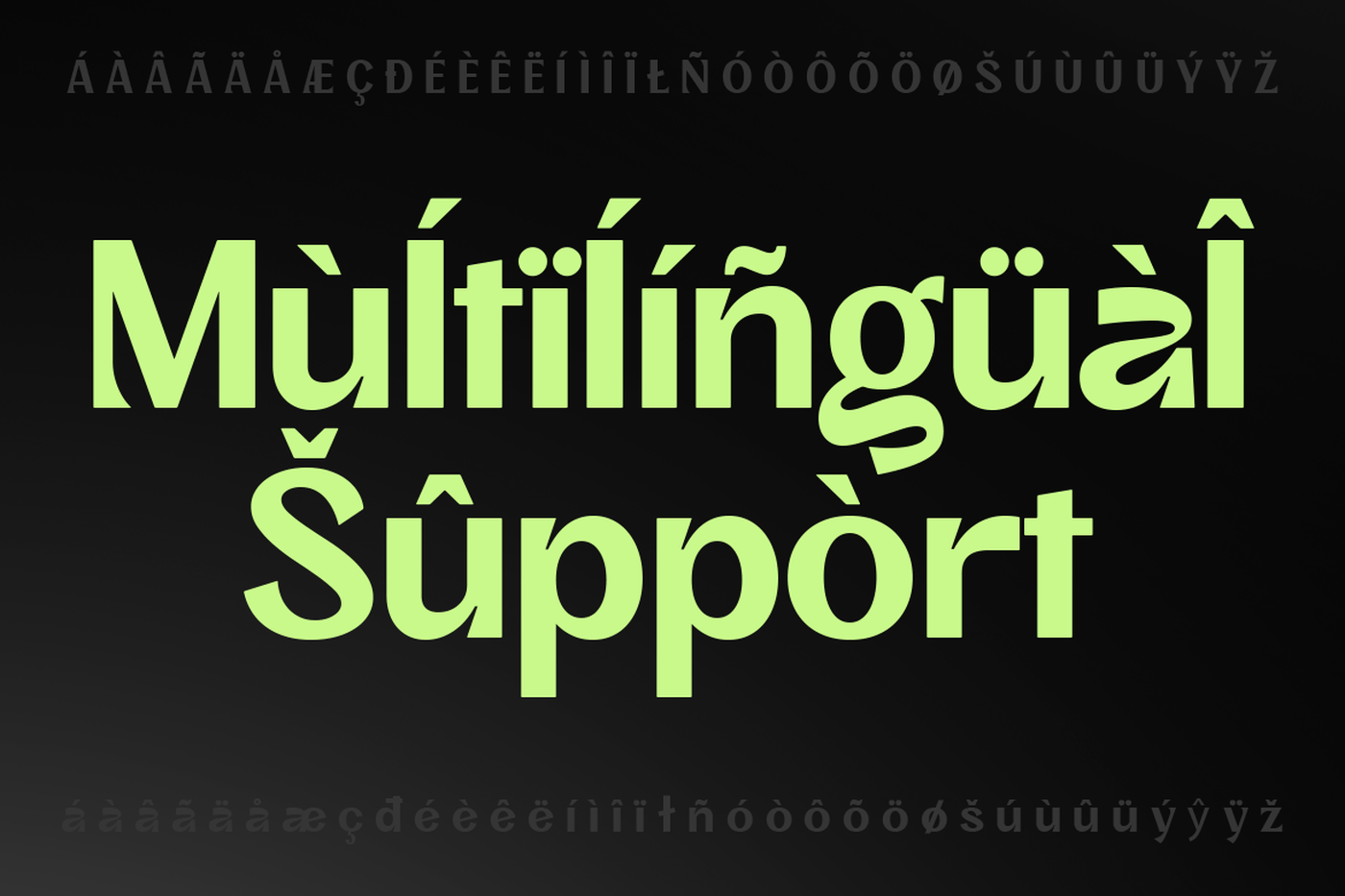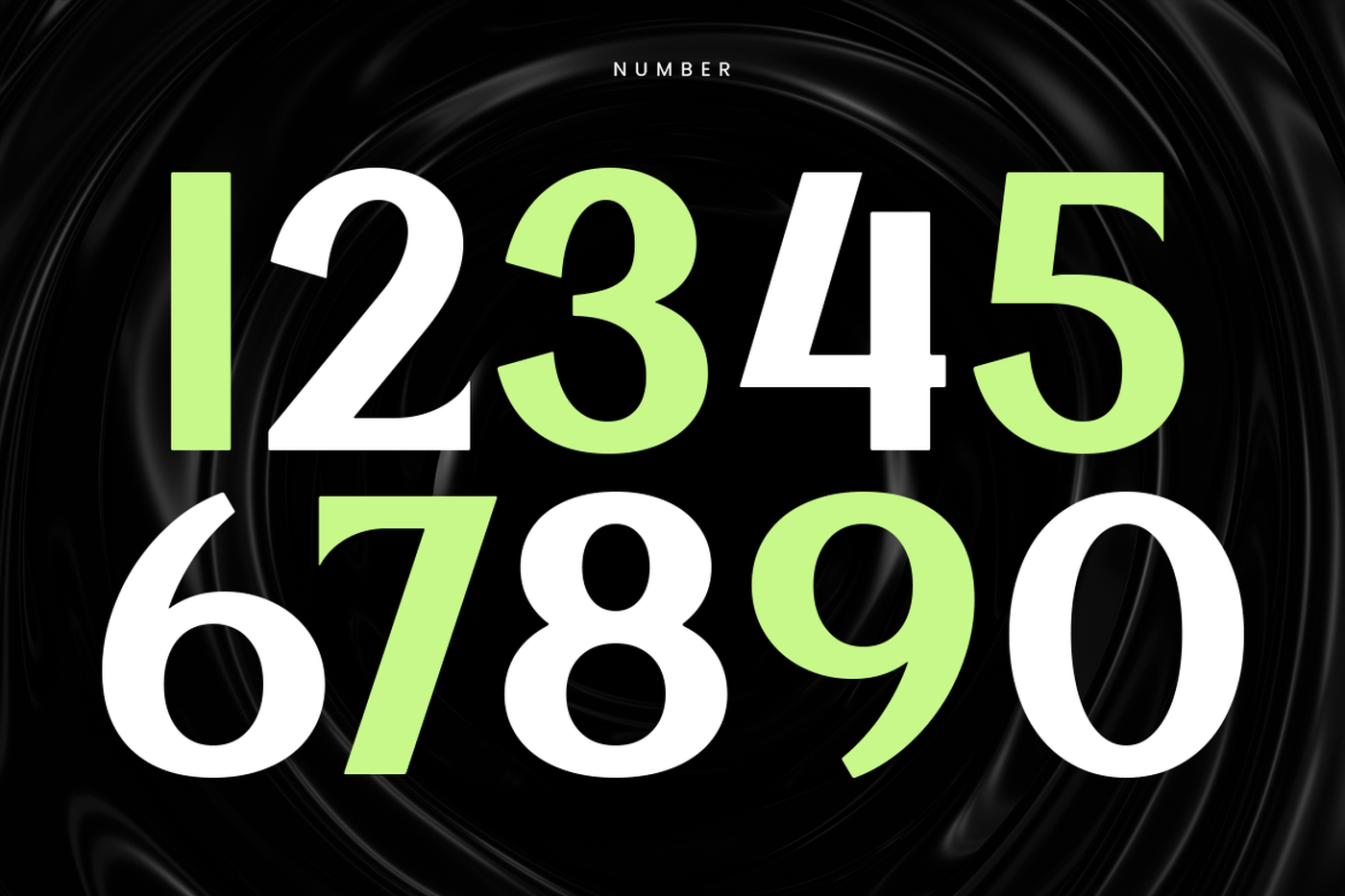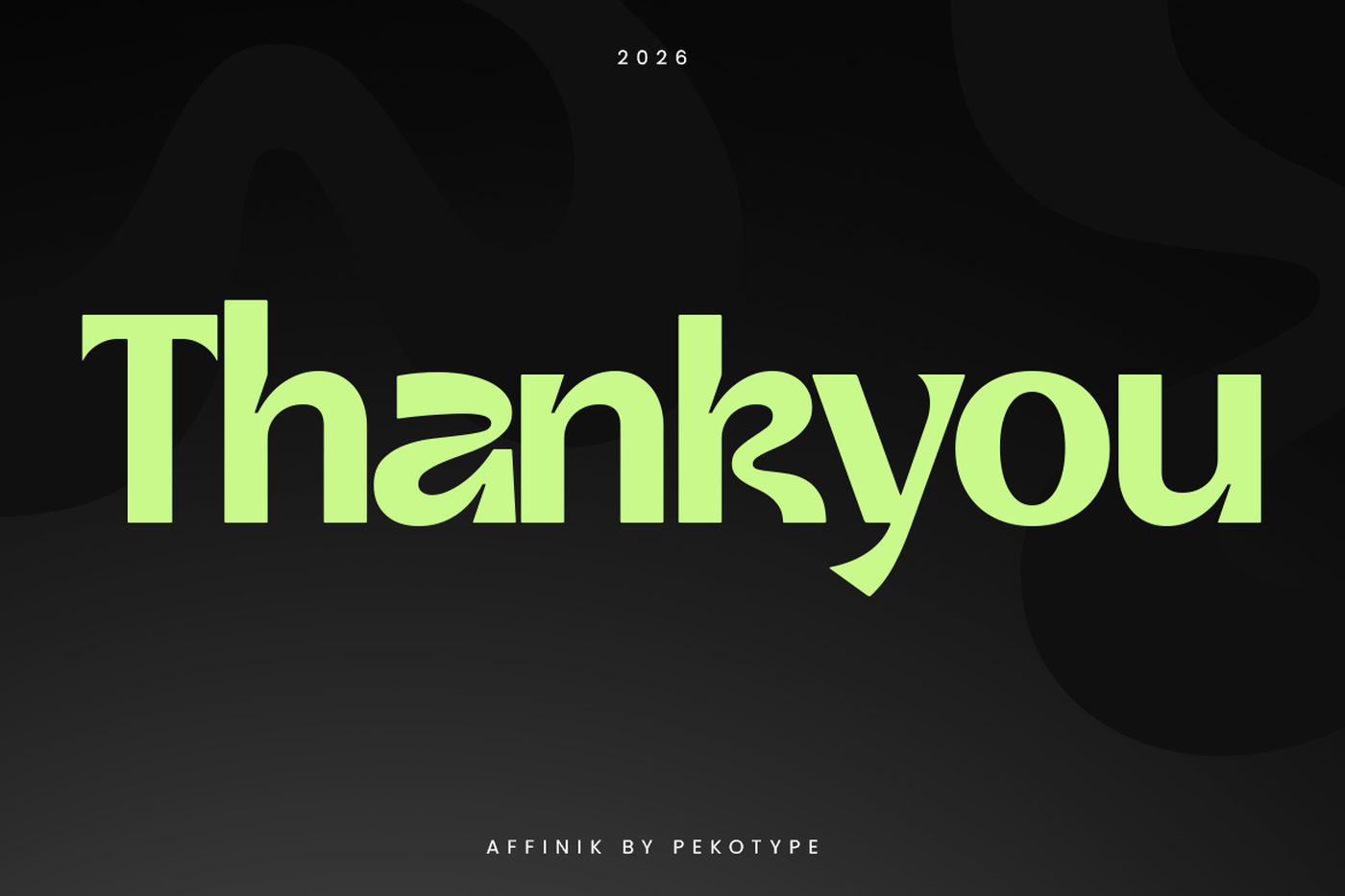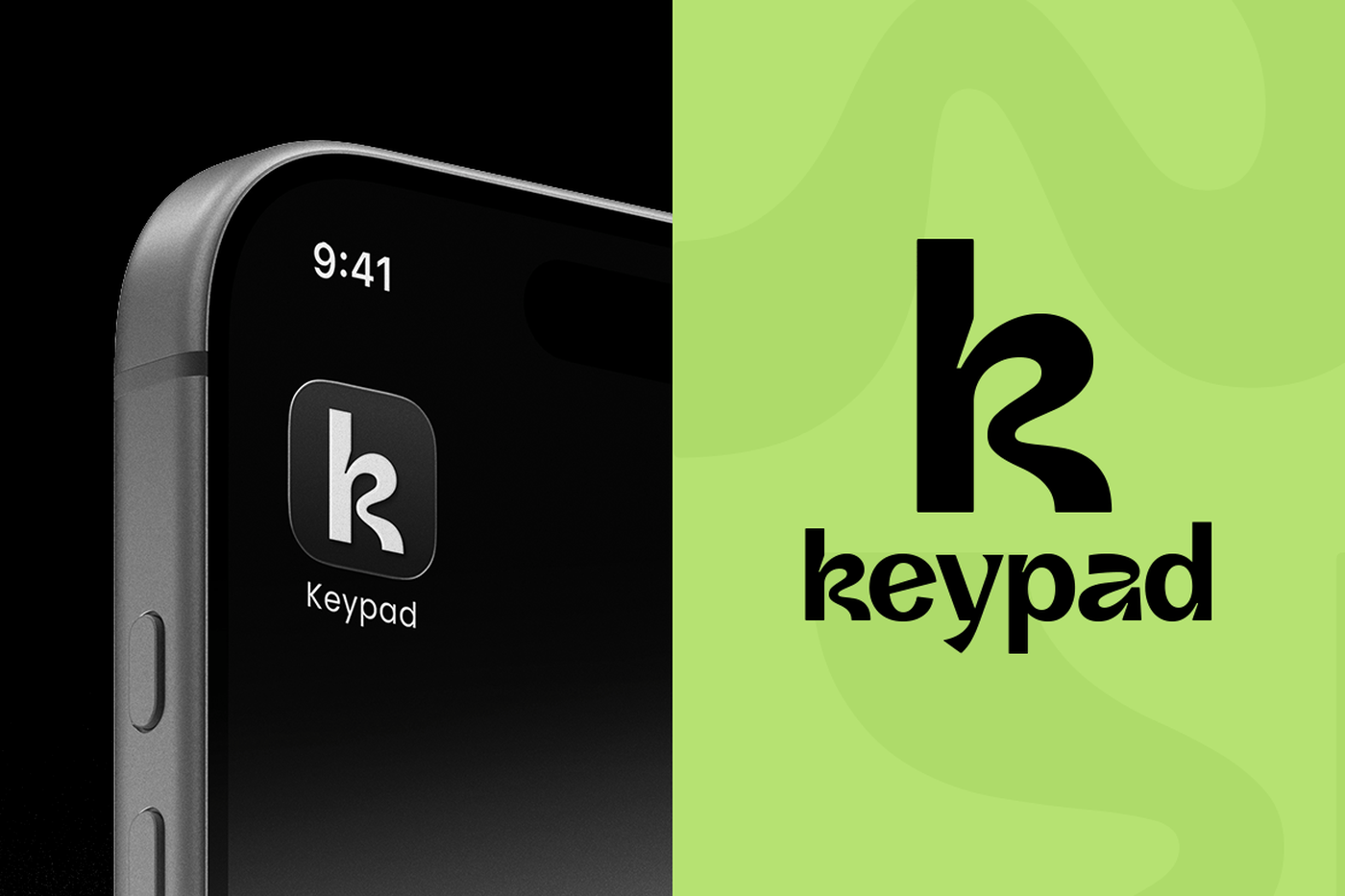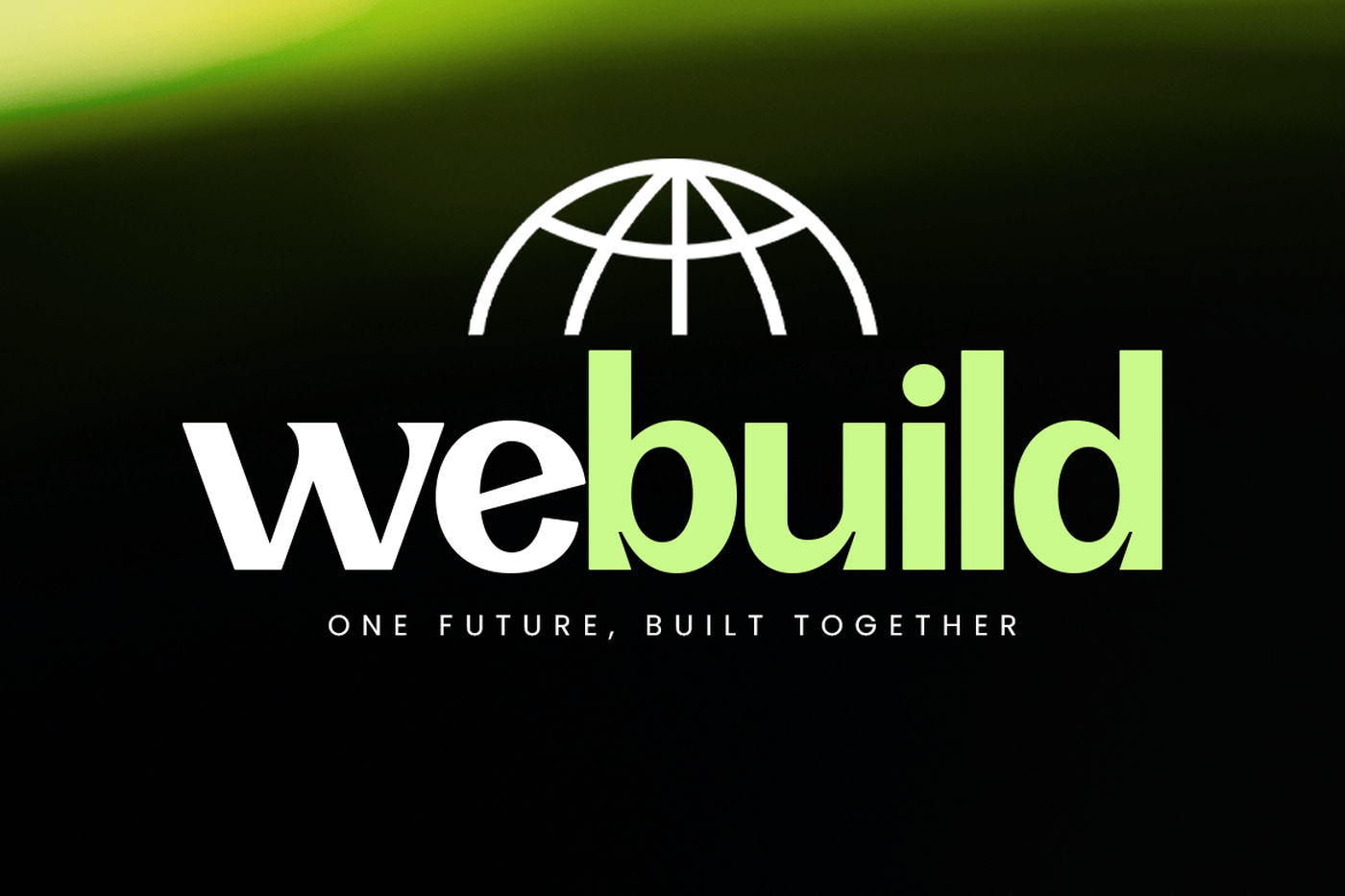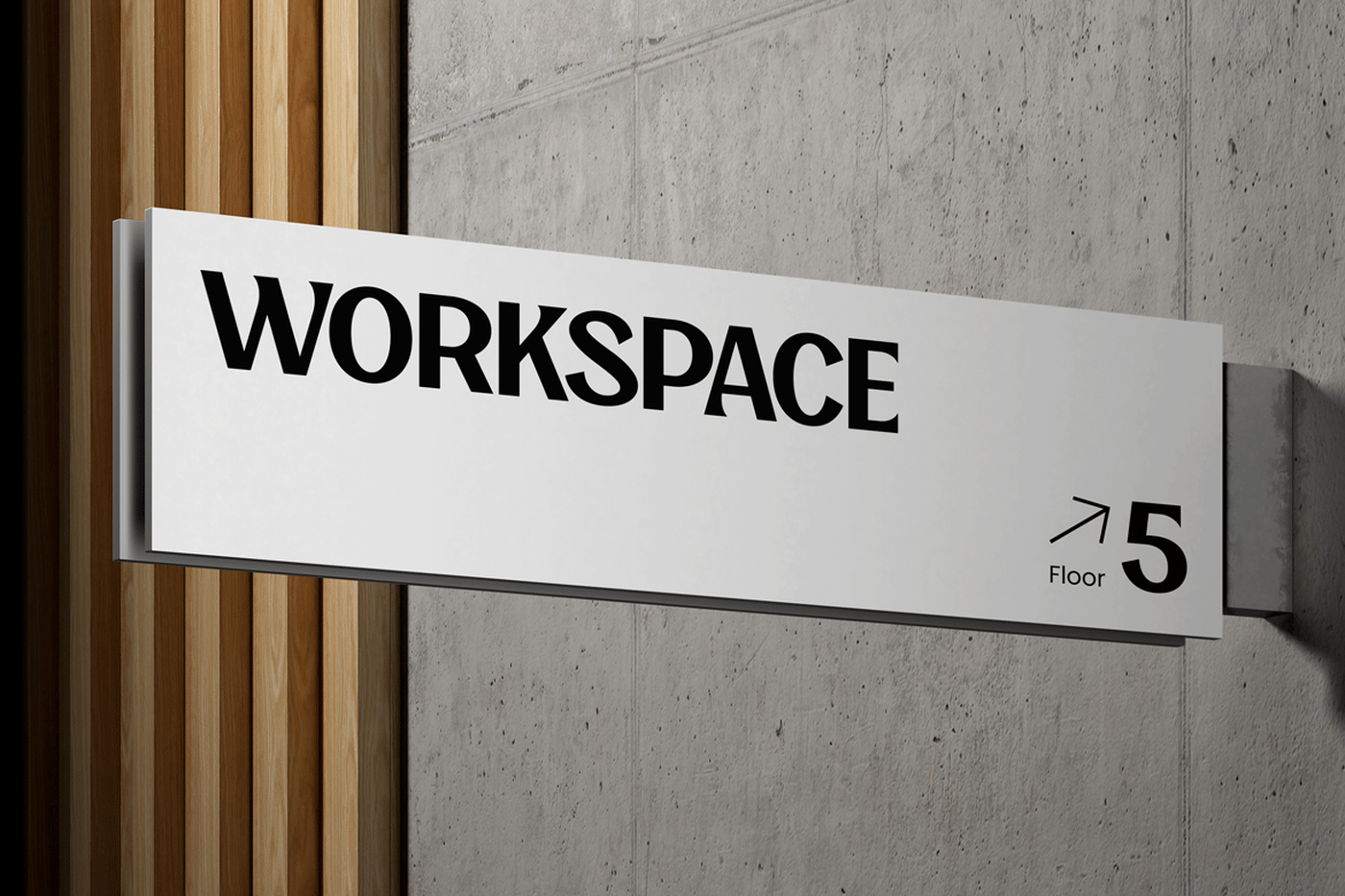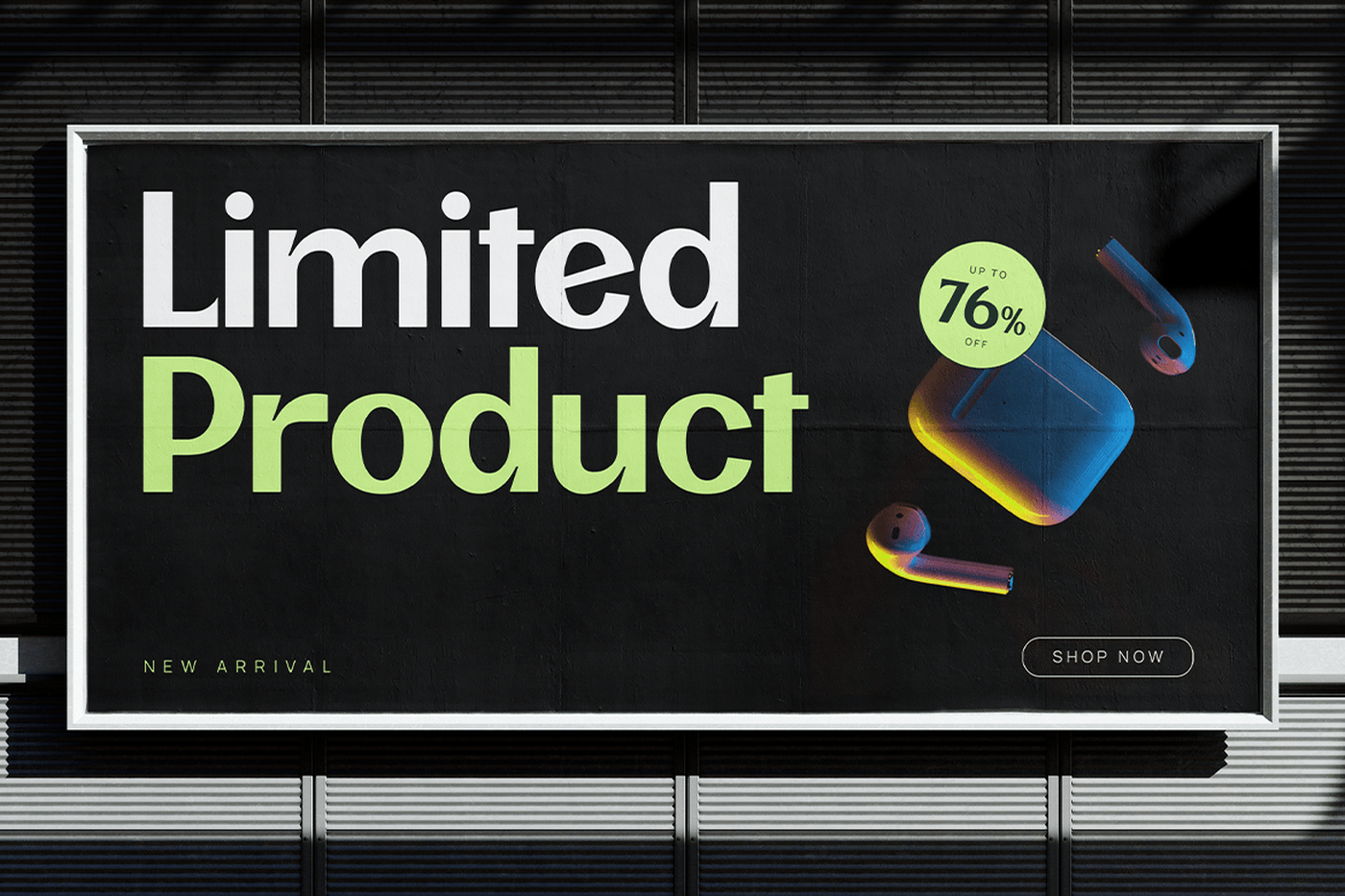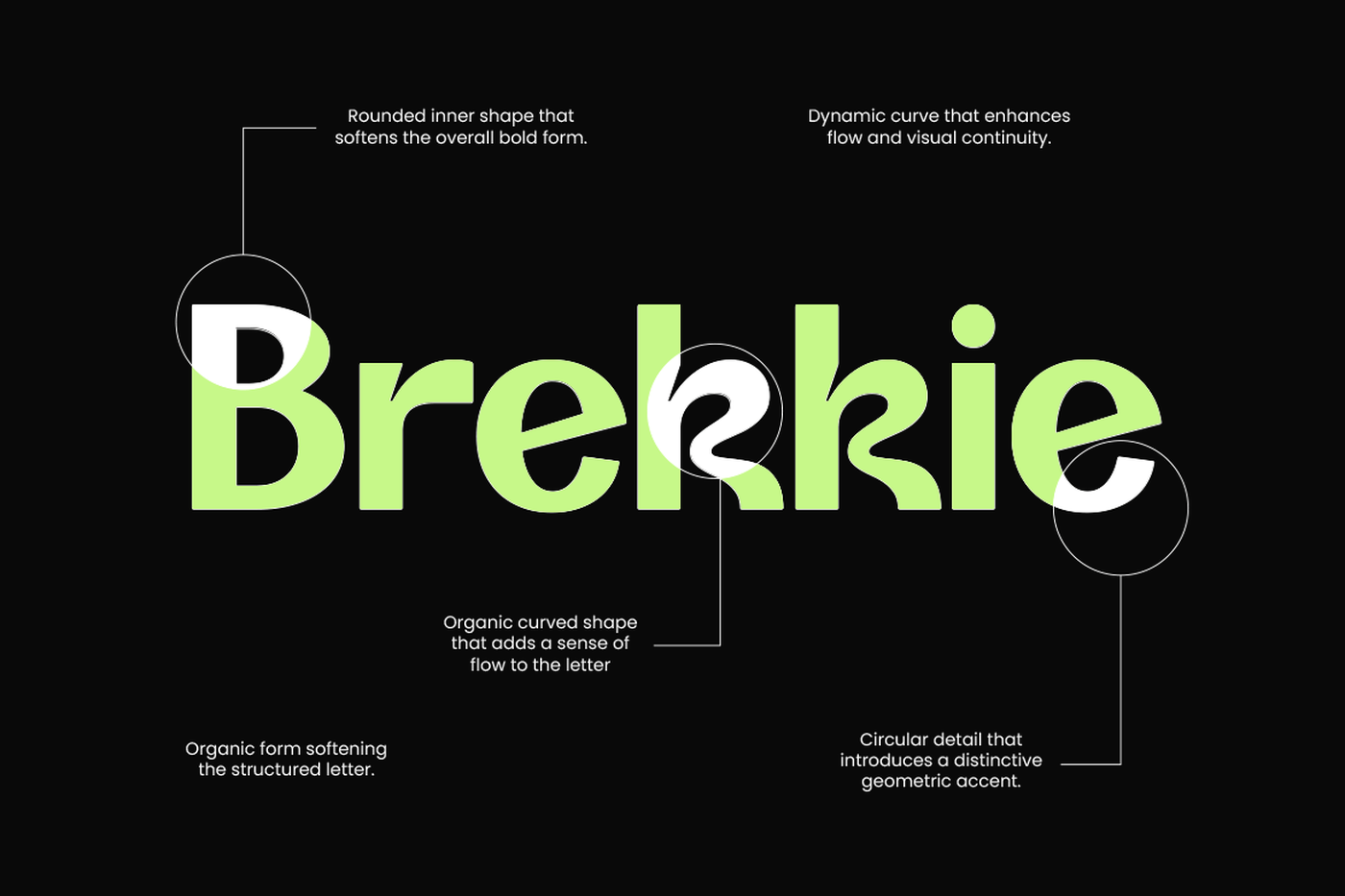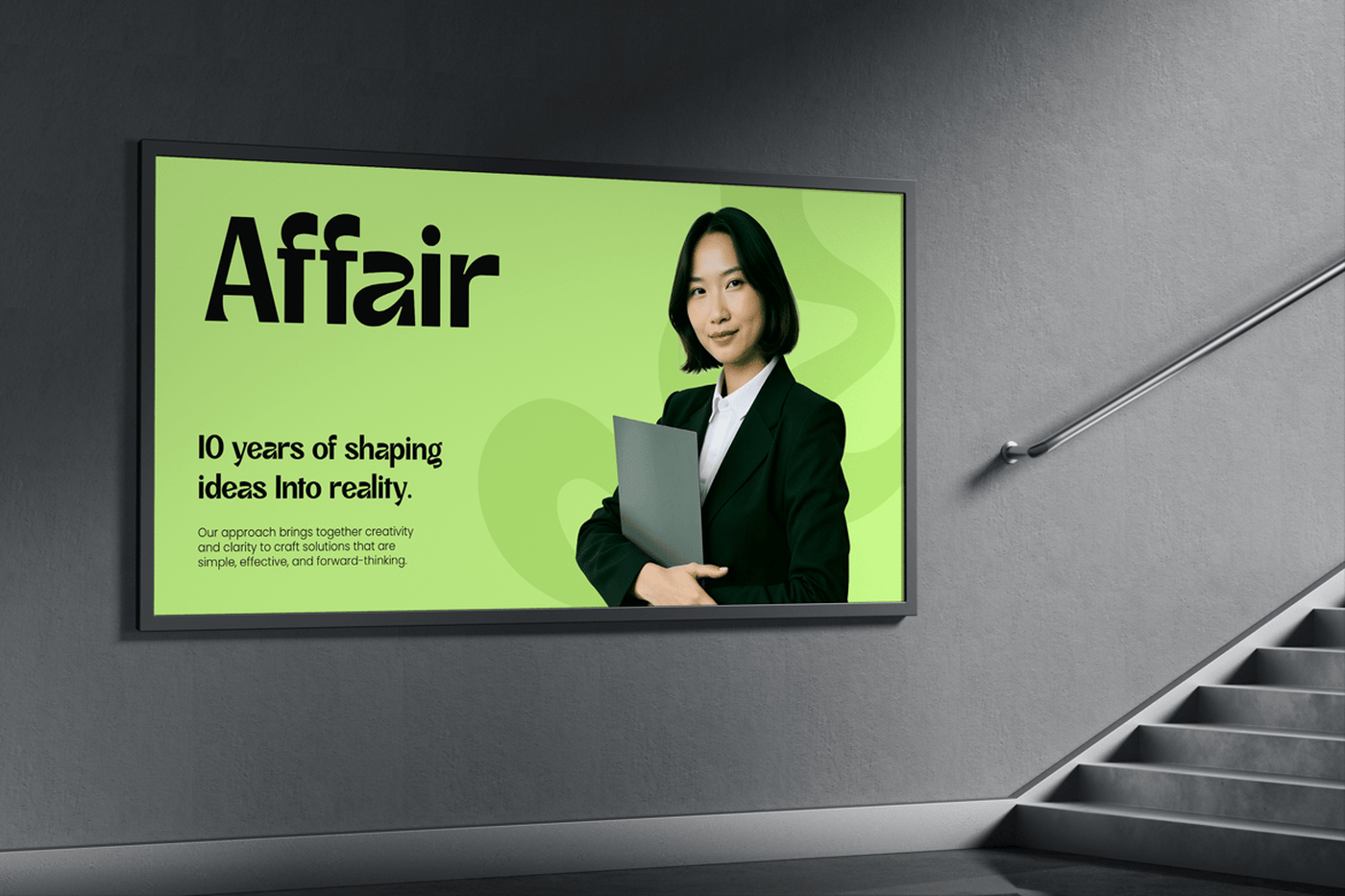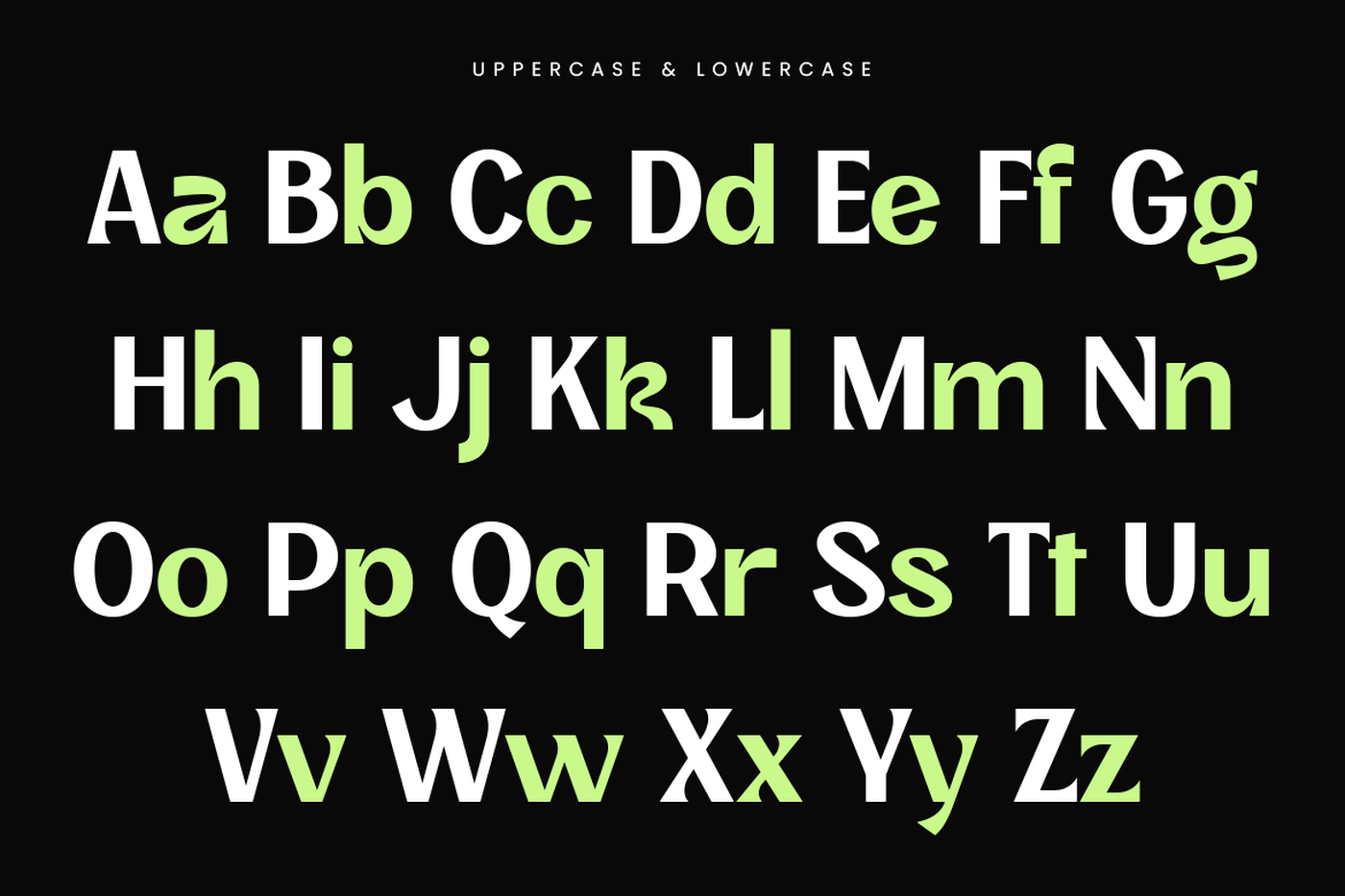
Affinik - Modern Logo Font
AFFINIK is a bold modern sans-serif logofont with a clean and professional look. The letterforms are smooth, simple, and slightly geometric, making it feel strong but still friendly. It has a nice balance between modern style and easy readability, so your text looks clear and confident in any layout. With uppercase, lowercase, numbers, symbols, and multilingual support, AFFINIK is flexible for many design needs. This font works great for logos, branding, tech companies, startups, business presentations, websites, and social media content. It fits perfectly for corporate identity, app design, product ads, signage, and clean marketing visuals—just like the preview with logos, UI layouts, and modern posters. If you want a font that feels modern, neat, and reliable, AFFINIK is a great choice for your project.
Designer: Peko Type
Font: Affinik